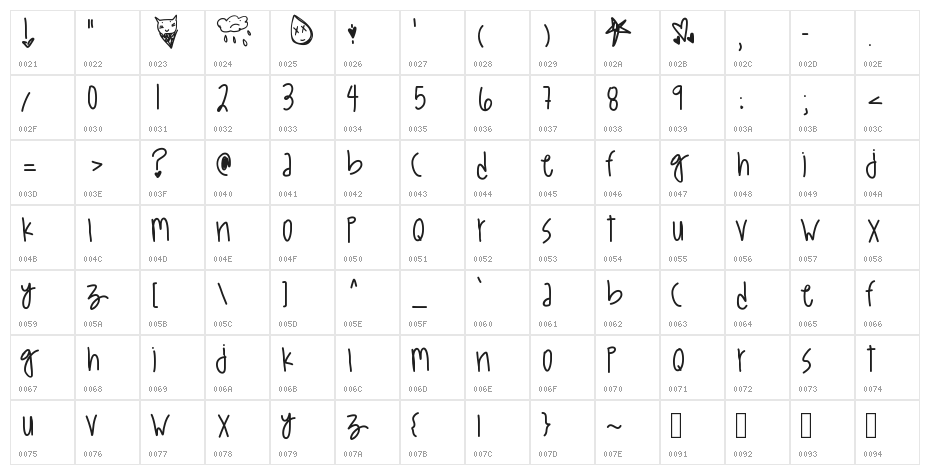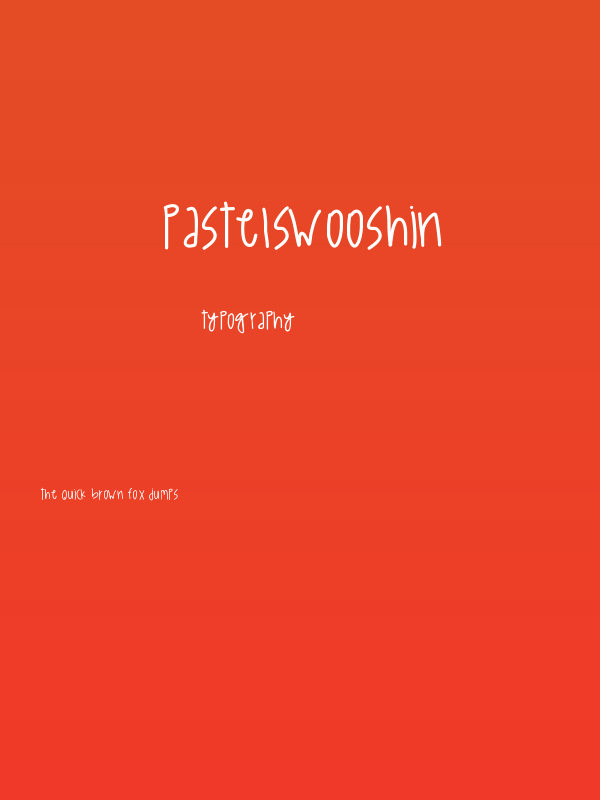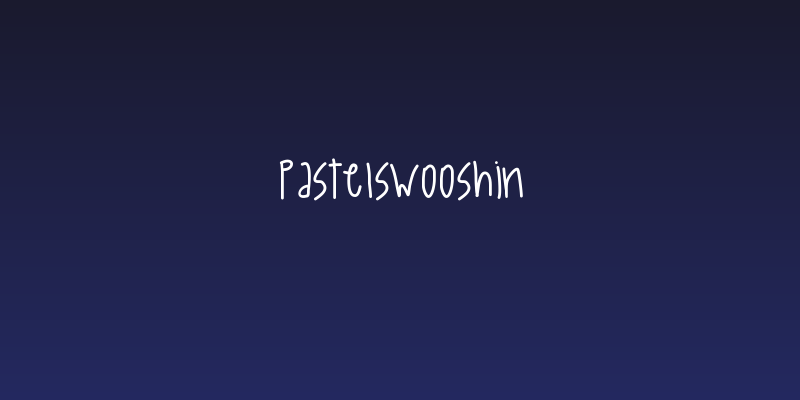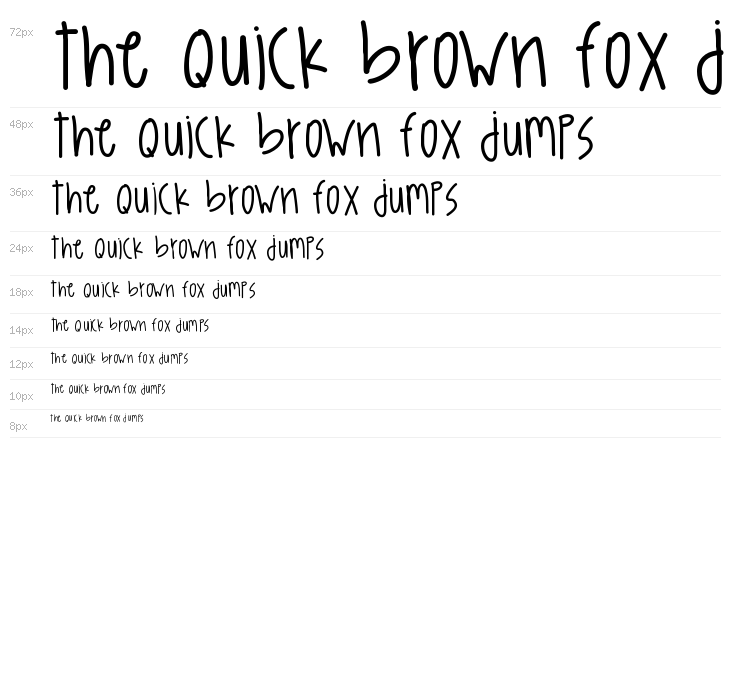
PastelSwooshin Font
PastelSwooshin Description
This playful and whimsical font features a handwritten style with a casual and friendly appearance. The letters are slightly irregular, adding a personal touch that mimics natural handwriting. The strokes are smooth and consistent, with a medium thickness that ensures readability while maintaining a relaxed vibe. The font includes both uppercase and lowercase letters, numbers, and a variety of special characters, making it versatile for different uses. Its unique charm is enhanced by the inclusion of doodle-like symbols, which add an element of fun and creativity.
| Use Case | Logos, Headlines, Informal Text |
| Proposed Projects | Ideal for greeting cards, children's books, playful branding, and social media graphics. |